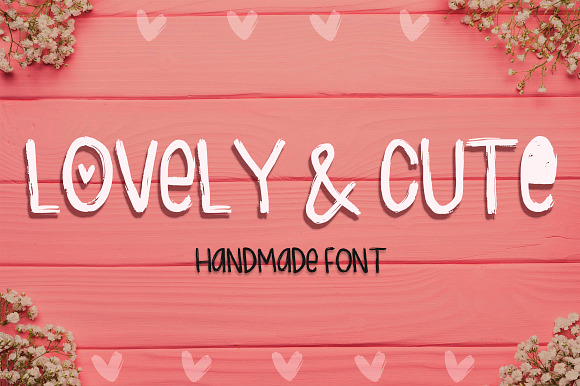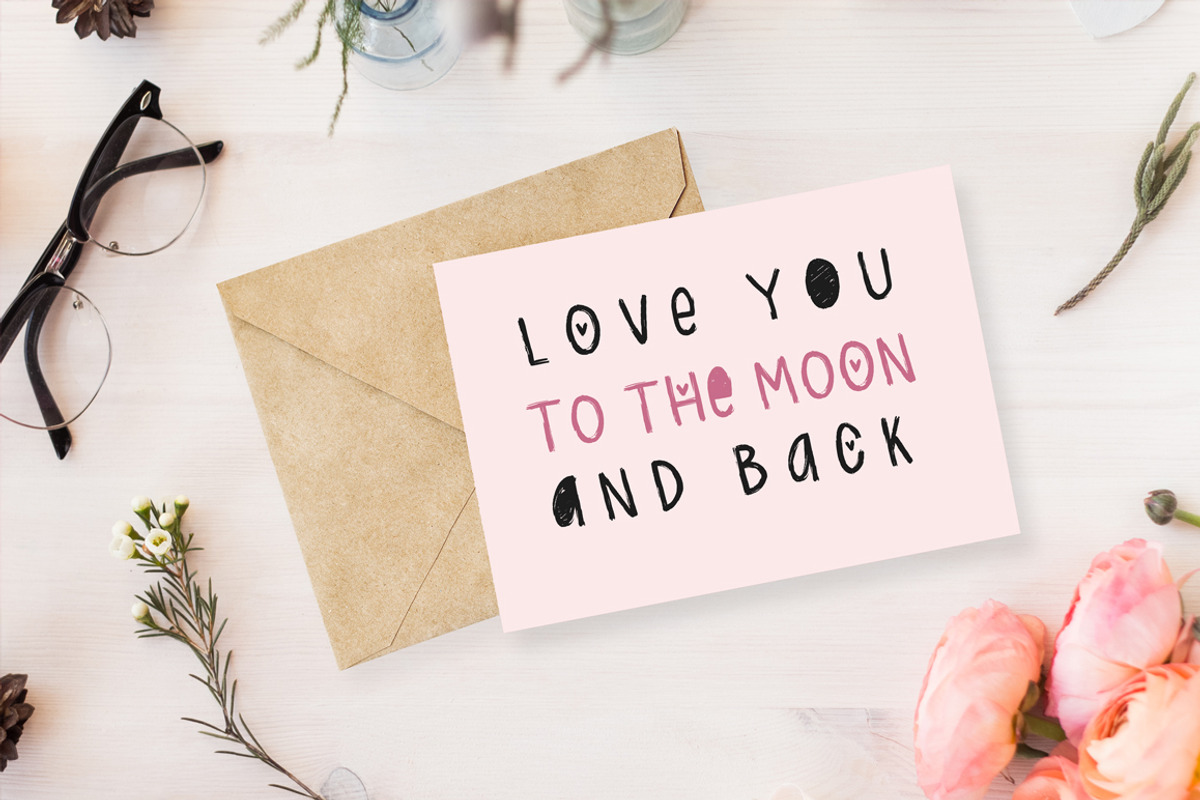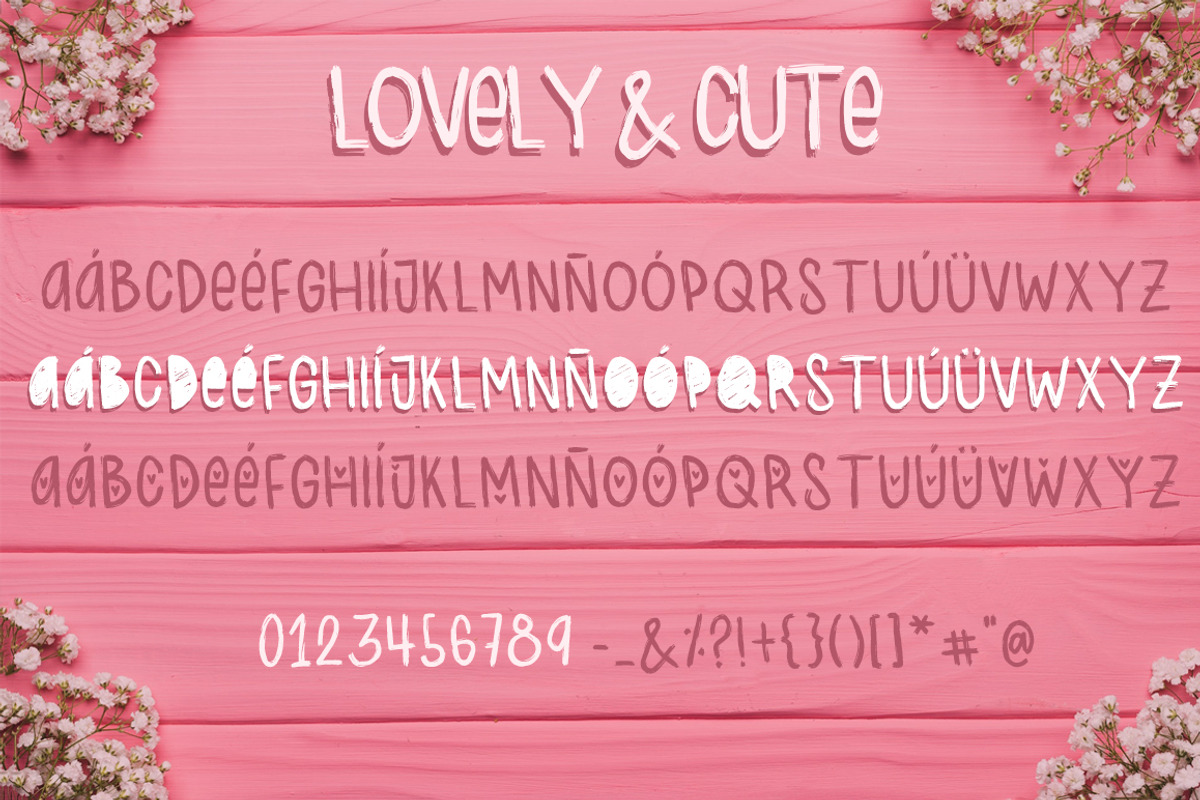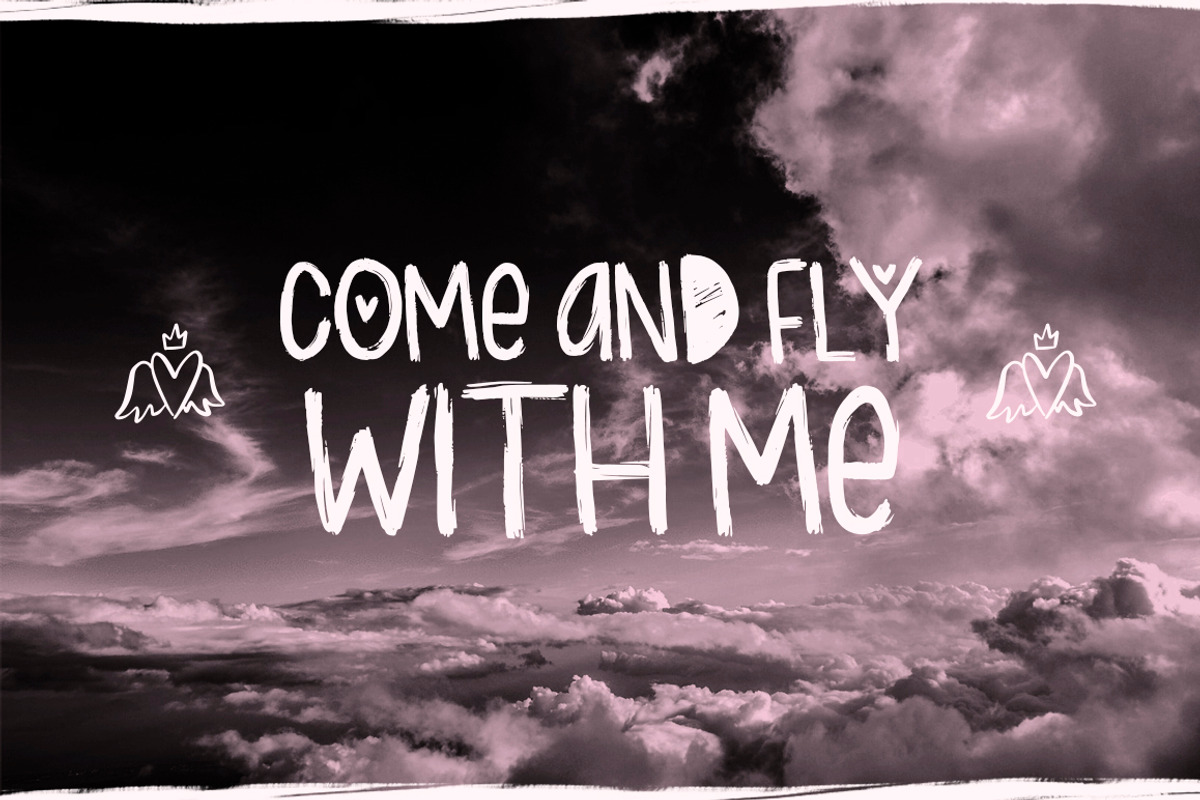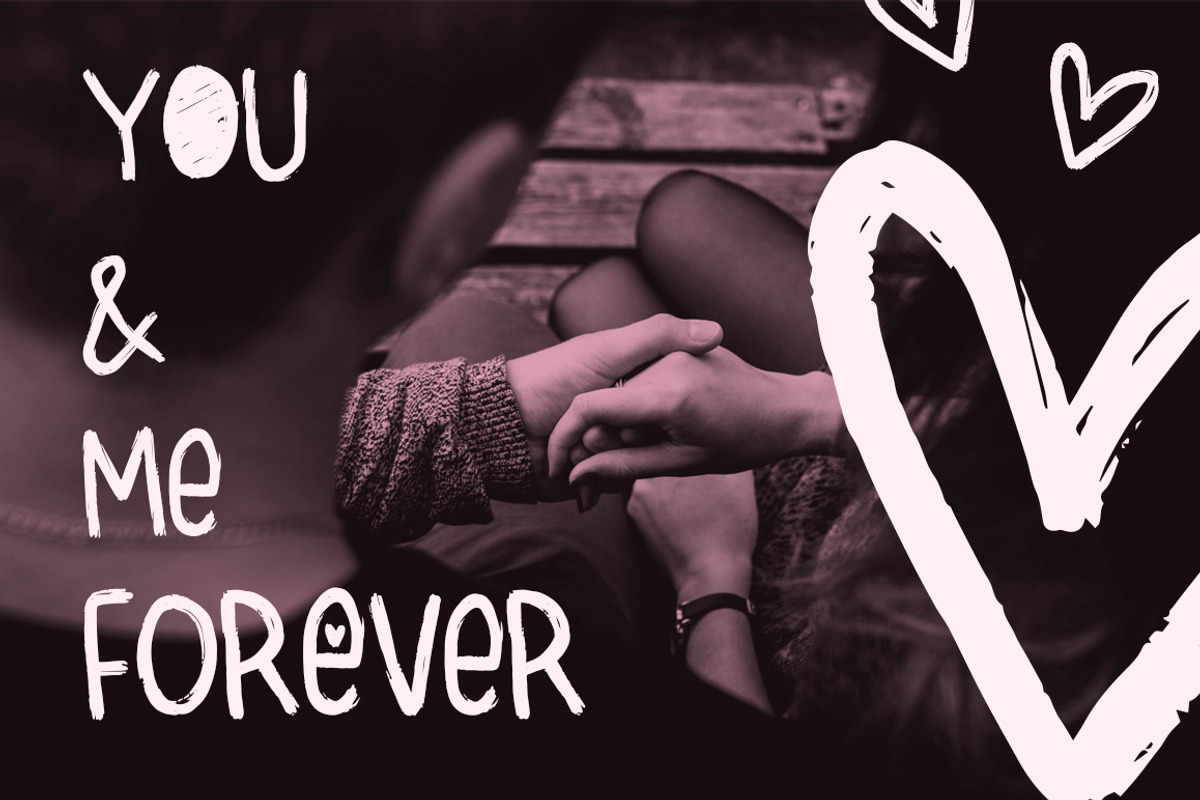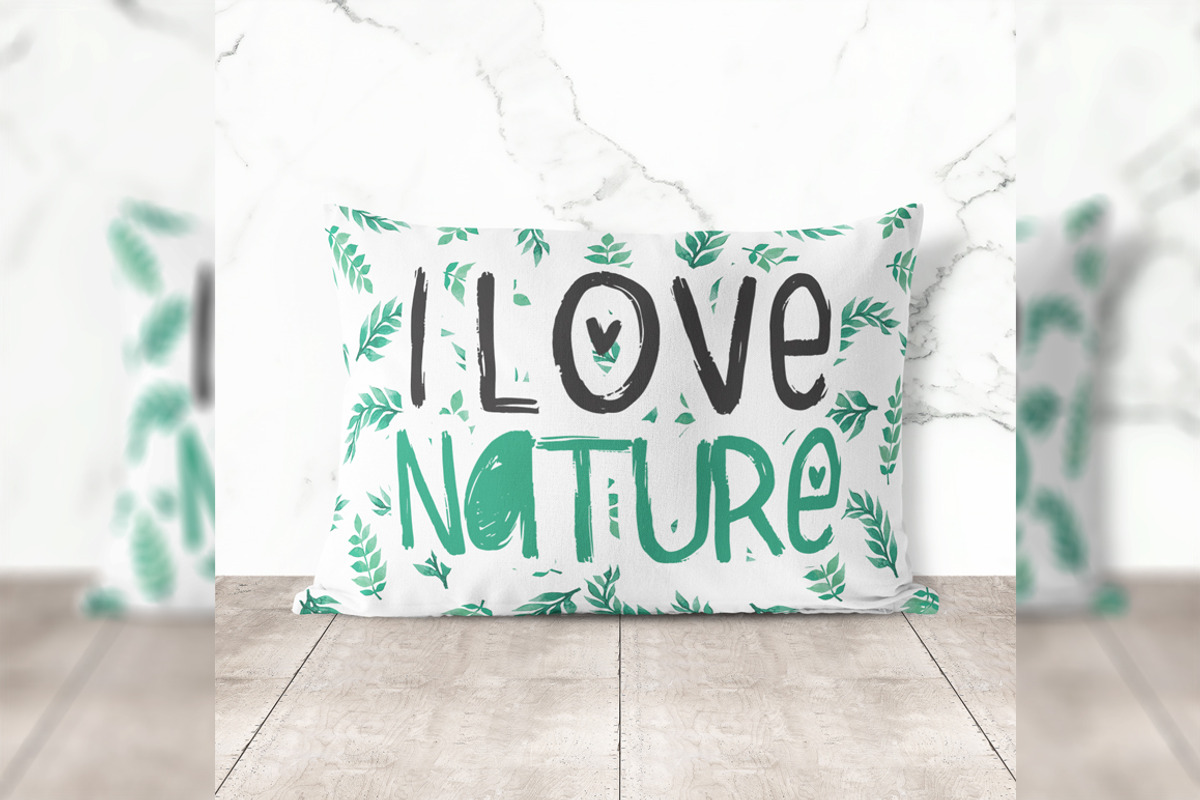
Lovely & Cute - 3 Handmade fonts!
Lovely & Cute - 3 handmade fonts! The most romantic day of the year is coming and I'm all fever up with lovely and cheesy designs! Here I present you a Three pack font with that cute and goofy style that you can use in your designs and give it a unique touch.
With multilangual characters
- Lovely Regular
- Lovelyfull Regular
- Lovelyhearts Regular